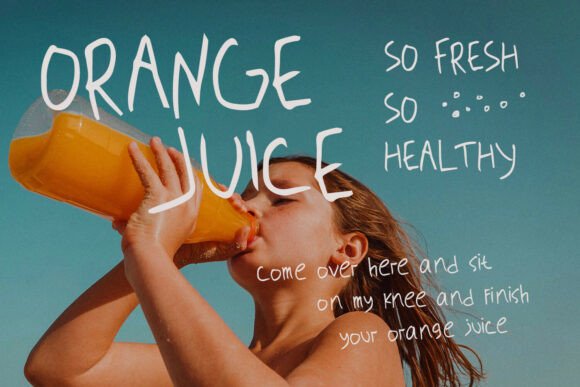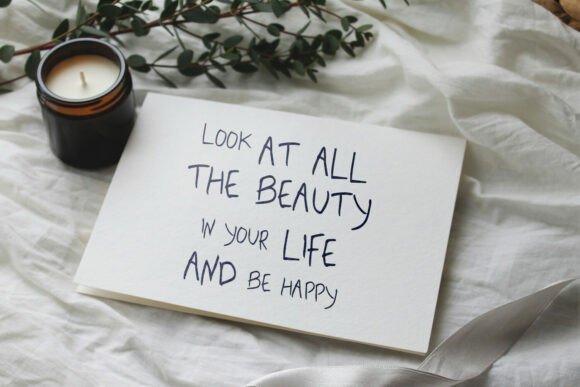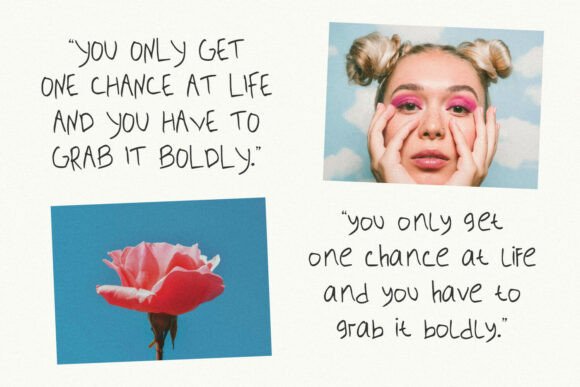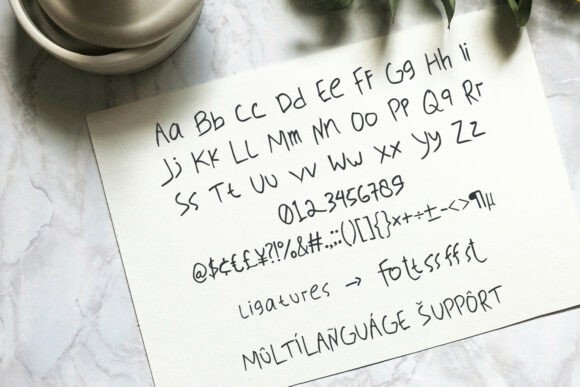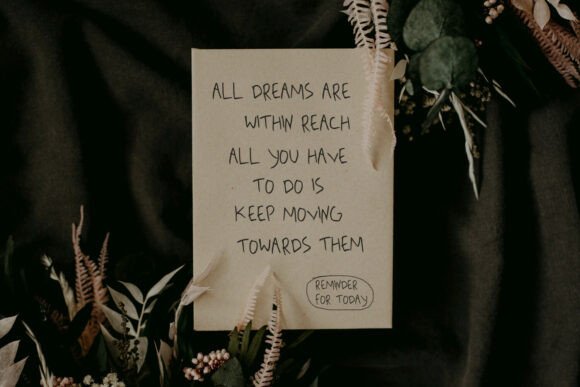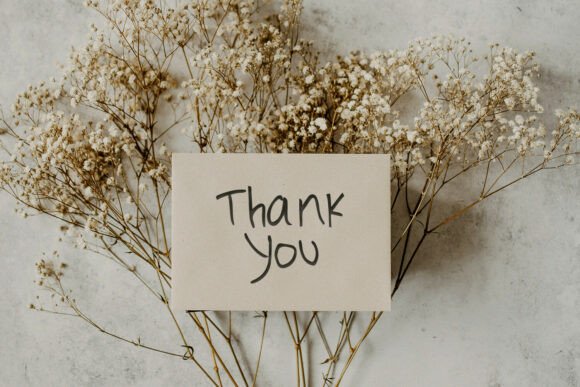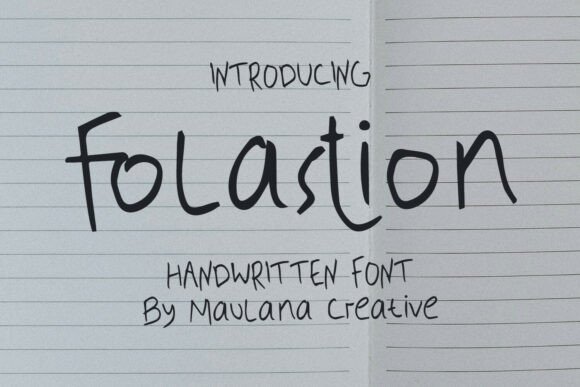
Introducing Folastion Font: The Playful and Expressive Handwritten Font
Are you looking for a font that can add a personal touch to your designs? Do you want to create a friendly and approachable feel in your branding, children’s products, or educational materials? Look no further than Folastion Font, a playful and expressive handwritten font that mimics the natural rhythm and charm of casual penmanship.
The Characteristics of Folastion Font
Folastion Font is a unique and charming typeface that boasts slightly irregular strokes and generous letter spacing, giving it a friendly and approachable feel. Its handcrafted aesthetic makes it perfect for designers seeking authenticity with a fun edge. The font maintains high readability while preserving a whimsical feel, making it ideal for a wide range of applications.
The Benefits of Using Folastion Font
So, why choose Folastion Font for your designs? Here are just a few benefits of using this versatile font:
- Perfect for personal notes and correspondence: Folastion Font is ideal for creating personal and heartfelt notes, letters, and cards. Its playful and expressive nature makes it perfect for adding a touch of personality to your written communication.
- Ideal for branding and marketing materials: Folastion Font’s friendly and approachable feel makes it perfect for use in branding and marketing materials, such as logos, packaging, and advertisements.
- Suitable for children’s products and educational materials: The font’s playful and whimsical nature makes it perfect for use in children’s products, such as books, toys, and games, as well as educational materials, such as worksheets and activity sheets.
- High readability: Despite its handcrafted aesthetic, Folastion Font maintains high readability, making it perfect for use in digital and print materials.
The Design Behind Folastion Font
Folastion Font is designed to mimic the natural rhythm and charm of casual penmanship. Its slightly irregular strokes and generous letter spacing give it a friendly and approachable feel, while its handcrafted aesthetic makes it perfect for designers seeking authenticity with a fun edge.
Using Folastion Font in Your Designs
Folastion Font is a versatile font that can be used in a wide range of applications, from digital to print. Here are a few tips for using Folastion Font in your designs:
- Pair it with bold fonts: Folastion Font pairs perfectly with bold fonts, creating a striking contrast that adds visual interest to your designs.
- Use it in combination with images: Folastion Font can be used in combination with images to add a personal touch to your designs.
- Experiment with colors: Folastion Font can be used with a wide range of colors, from bright and bold to soft and pastel.
In conclusion, Folastion Font is a playful and expressive handwritten font that is perfect for designers seeking a friendly and approachable feel in their designs. Its handcrafted aesthetic, high readability, and versatility make it a great choice for a wide range of applications, from personal notes and correspondence to branding and marketing materials. Whether you’re a designer, craft, or DIY enthusiast, Folastion Font is a great addition to your font collection.
FAQs About Folastion Font
- What is Folastion Font?
- Folastion Font is a playful and expressive handwritten font that mimics the natural rhythm and charm of casual penmanship.
- What is Folastion Font used for?
- Folastion Font can be used for a wide range of applications, including personal notes and correspondence, branding and marketing materials, children’s products and educational materials.
- Is Folastion Font easy to read?
- Yes, Folastion Font maintains high readability while preserving a handcrafted aesthetic, making it perfect for use in digital and print materials.